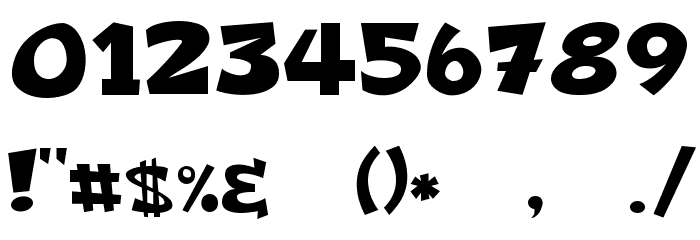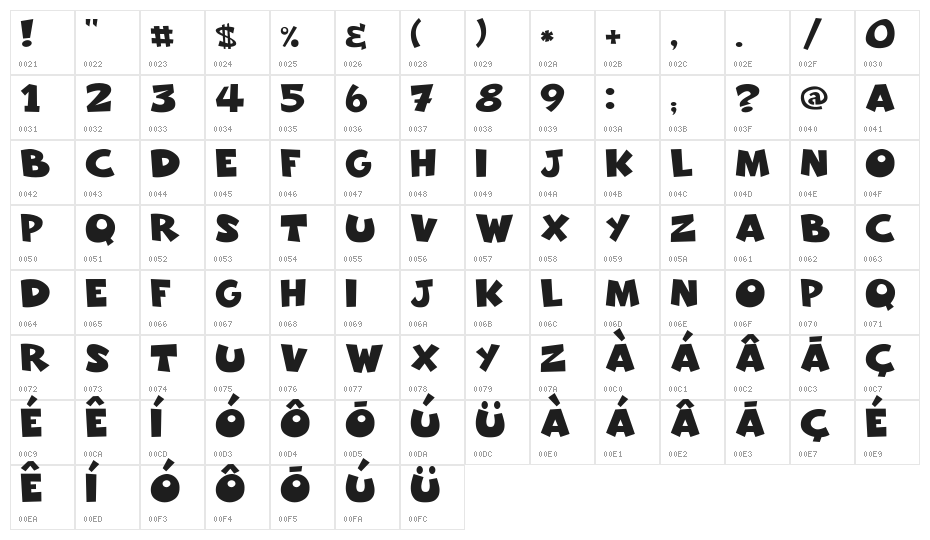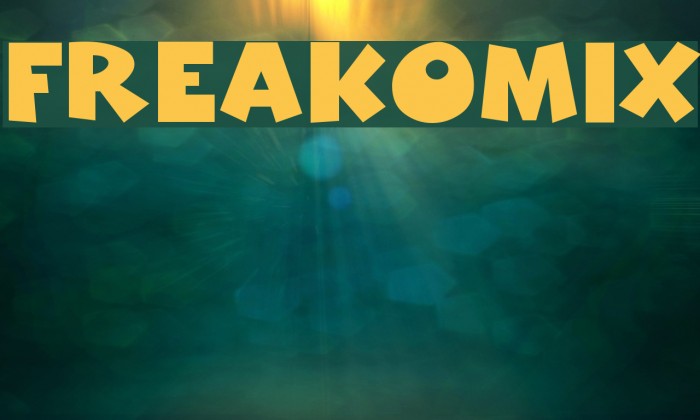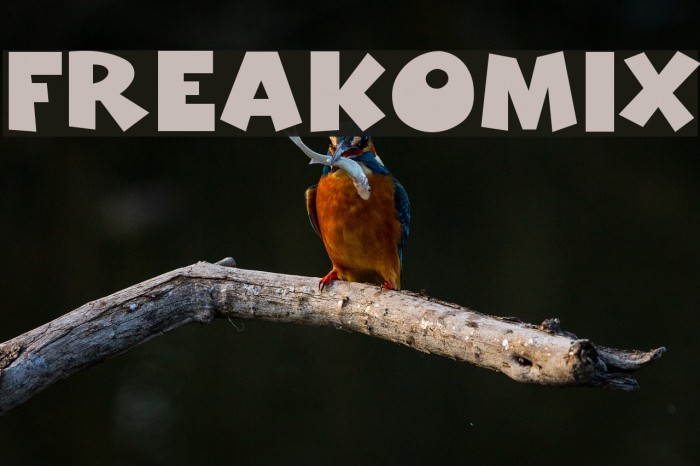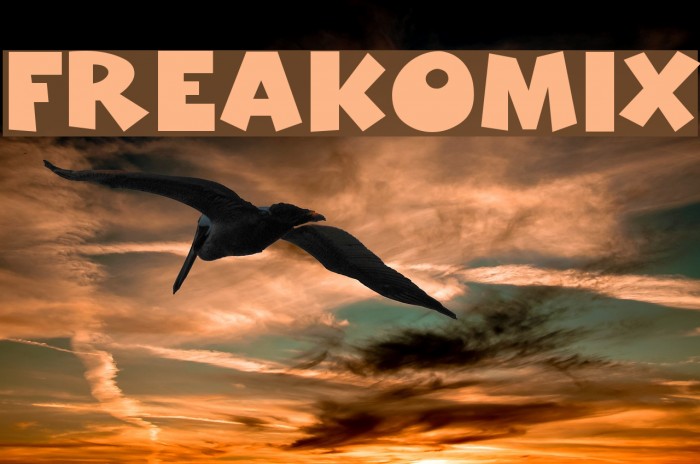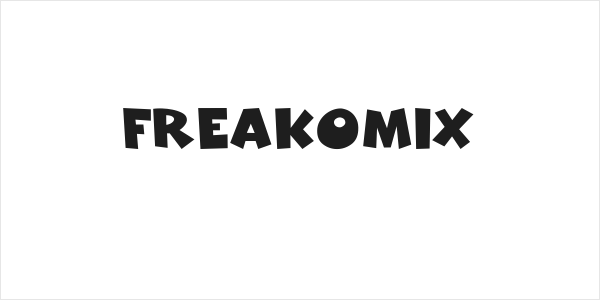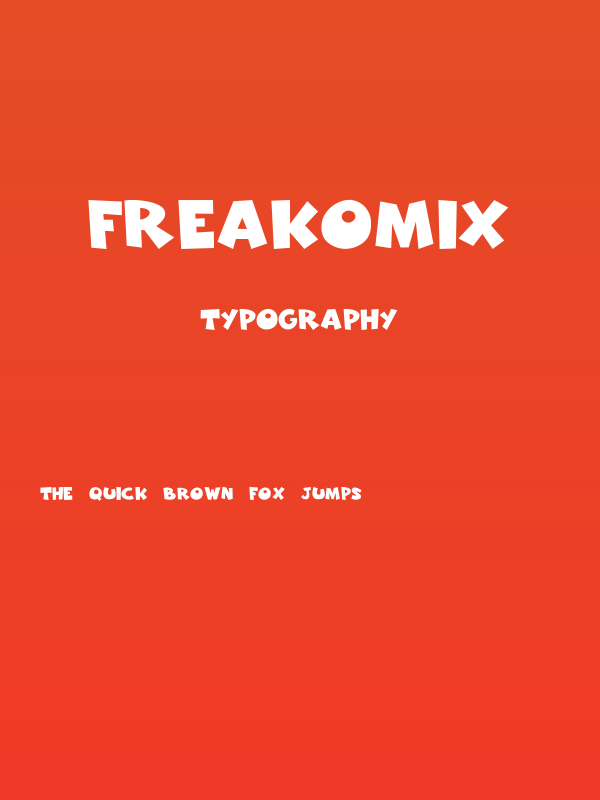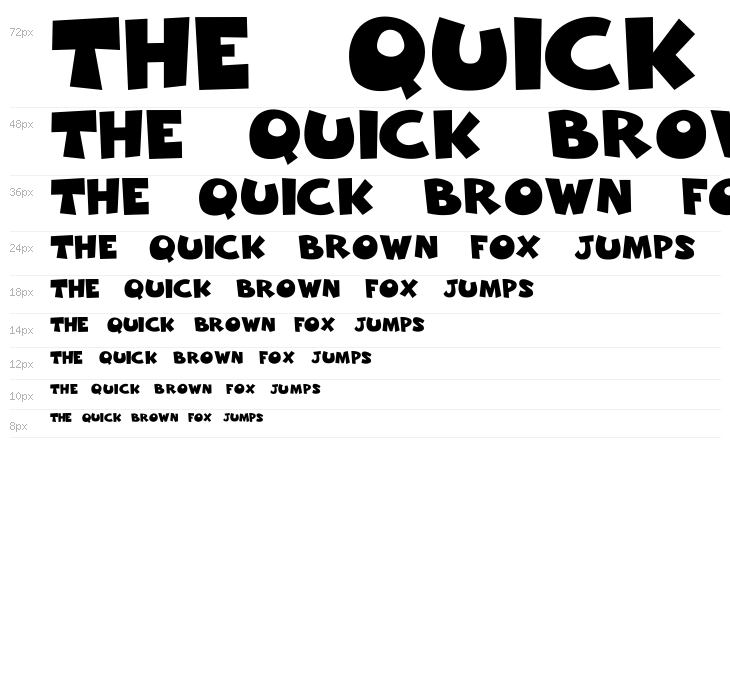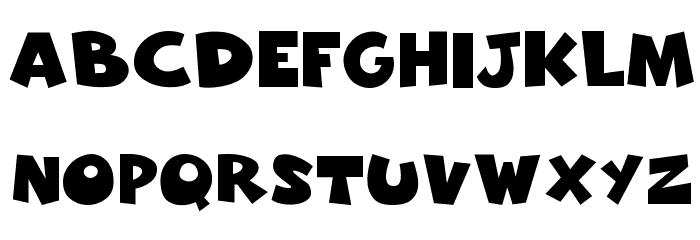
Freakomix Font
Freakomix Description
This font features a bold and playful design, characterized by its exaggerated, cartoon-like letterforms. The letters are thick and have a whimsical, uneven baseline, giving them a lively and dynamic appearance. The font's style is reminiscent of comic book lettering, with a strong emphasis on fun and creativity. The characters are well-spaced, ensuring readability while maintaining their quirky charm. The numbers and special characters follow the same playful aesthetic, making this font suitable for projects that require a touch of humor and lightheartedness.
| Overall Style | Playful, Comic |
| Proposed Projects | Ideal for comic books, children's books, playful branding, and posters. |